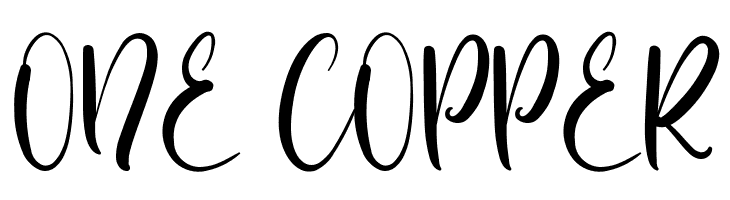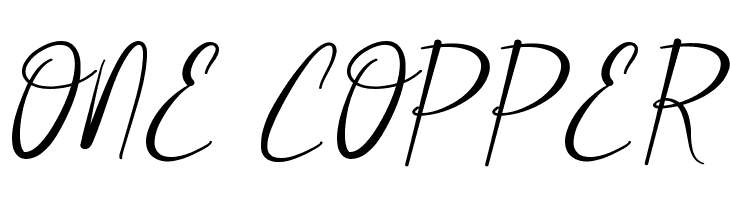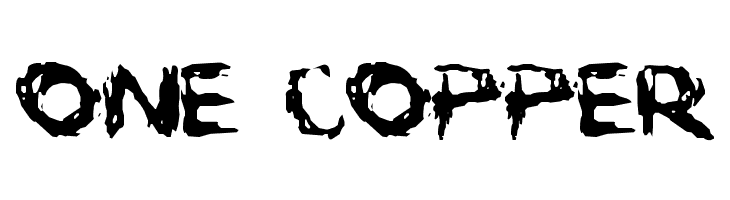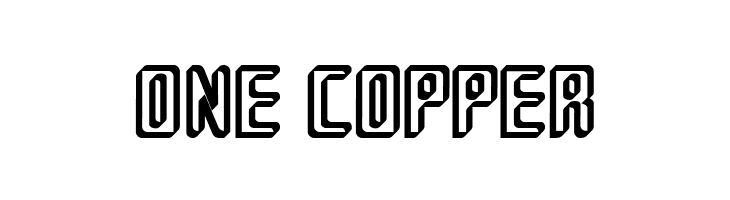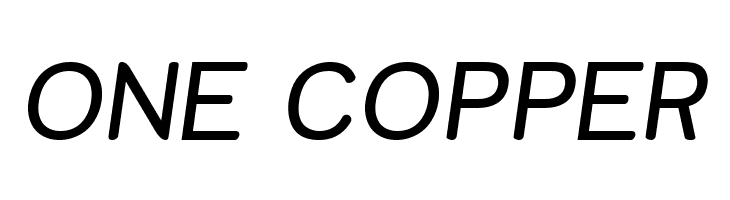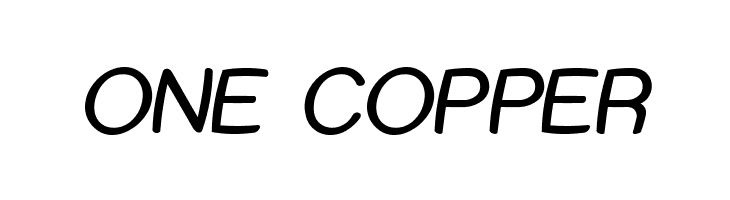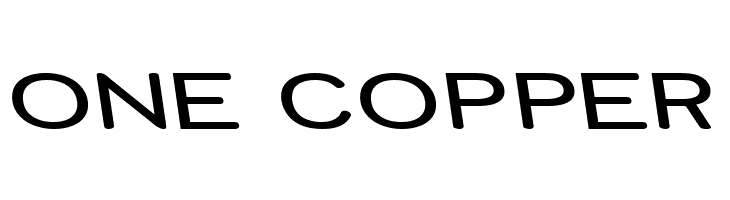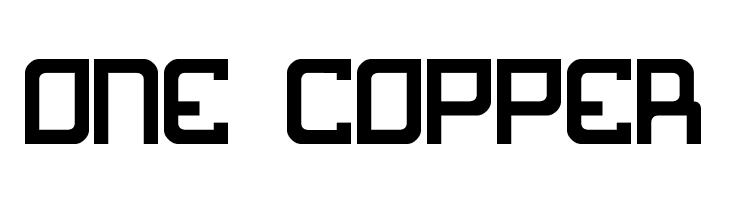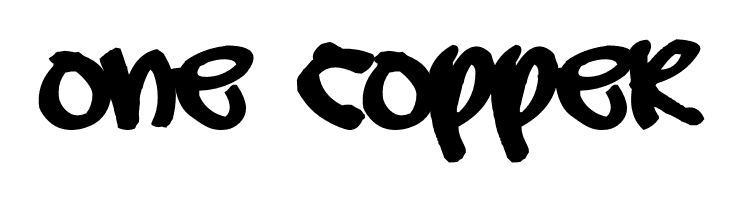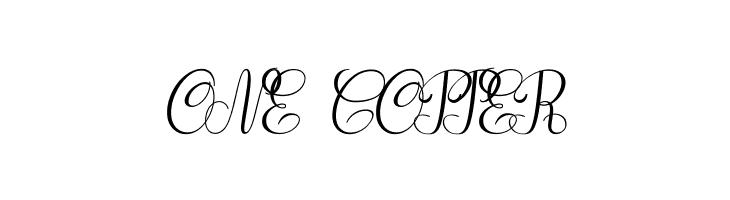
A modern outline font with geometric and uniform letterforms.
A modern, rounded sans-serif font with uniform strokes and balanced spacing.
A modern sans-serif font with smooth curves and uniform stroke width, perfect for versatile applications.
A modern, narrow sans-serif font with uniform stroke width and clear legibility.
A modern, italic sans-serif font with a sleek and dynamic style.
A playful, rounded font with smooth curves and a friendly appearance.
A playful, rounded font with smooth curves and expanded letterforms.
A playful, narrow font with a slightly warped and whimsical style.
A playful, rounded font with a casual and approachable style.
A modern, italicized font with smooth, rounded edges and a dynamic appearance.
A playful and elegant script font with a handwritten style.
An elegant, italicized script font with flowing, cursive letterforms.
A bold, cursive font with interconnected letters and a modern flair.
A bold, handwritten-style font with a dynamic and informal appearance.
A modern, elegant cursive font with dynamic stroke variations.
A playful, hand-drawn serif font with quirky, irregular strokes.
A bold, condensed font with strong, impactful uppercase letters.
A bold, modern sans-serif font with a geometric and condensed style.
A bold, playful handwritten font with a friendly and approachable style.
A bold, graffiti-inspired font with dynamic strokes and urban flair.
An ornate and decorative font with gothic influences and intricate details.
A bold, geometric font with tall, narrow characters and a modern aesthetic.
A flowing script font with elegant curves and a handwritten feel.
A playful, hand-drawn font with tall, narrow letters and a whimsical style.
A playful, bold handwritten font with tall, narrow letters and rounded edges.
A distressed, grungy font with irregular, jagged edges and a chaotic aesthetic.
A sleek, modern font with geometric and futuristic design elements.
A bold, modern font with rounded edges and geometric structure.
A bold, geometric 3D font with a modern, futuristic style.